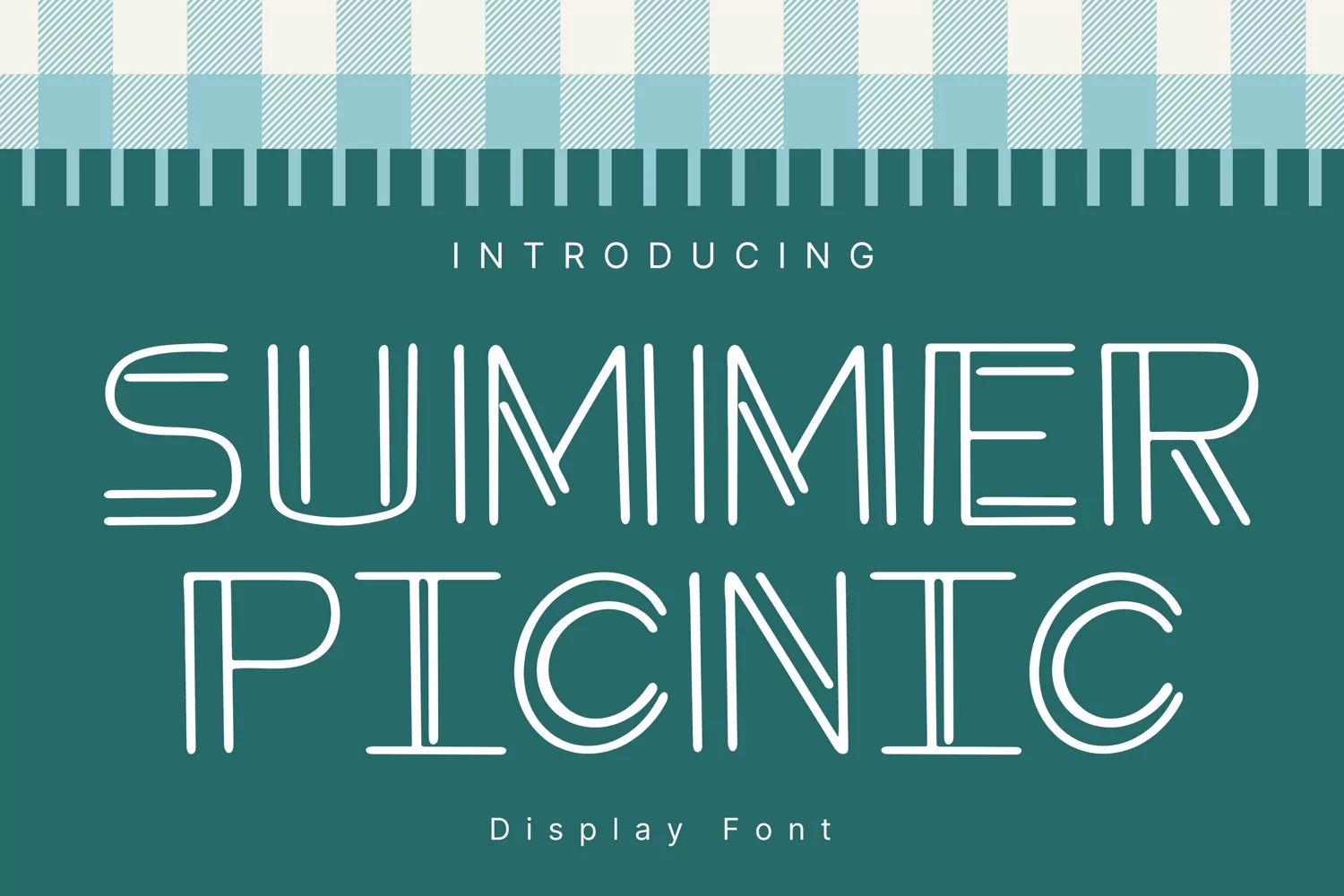
Created By AchiArt
Summer Picnic Style
Summer Picnic Style is a whimsical and clean handwritten font. It can easily be matched to an incredibly large set of projects, so add it to your creative ideas and notice how it makes them stand out!